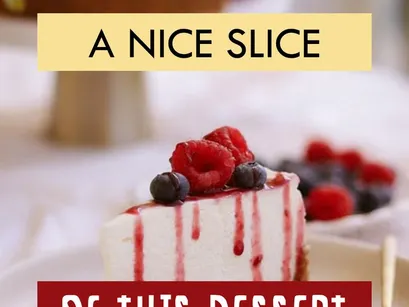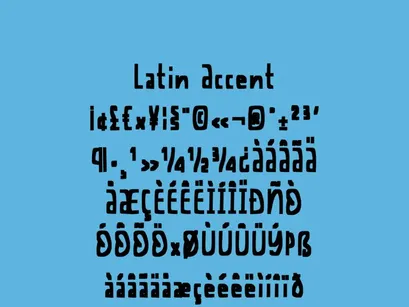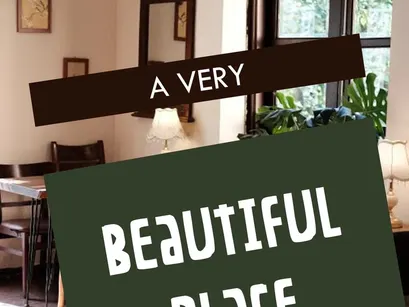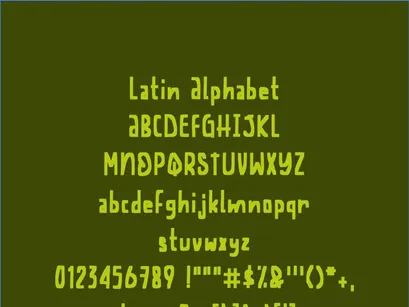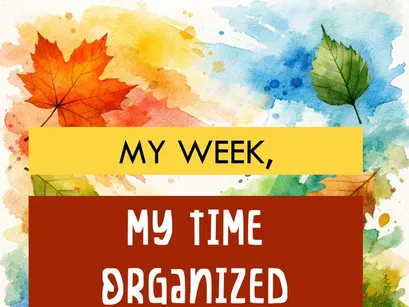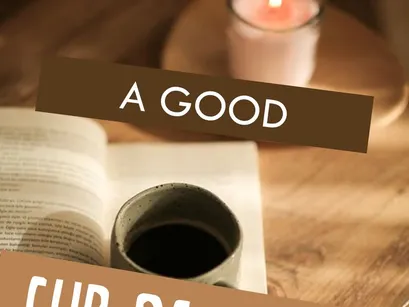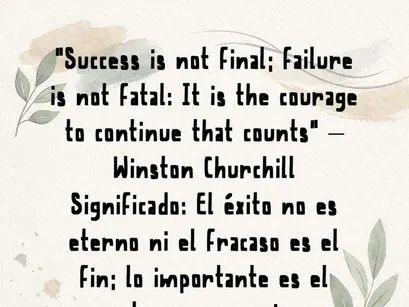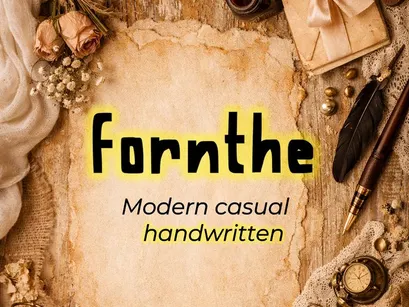
Fornthe is a modern, casual handwritten typeface inspired by paper texture and the natural strokes of handcrafted lettering.
Its style blends spontaneity with elegance, making it ideal for projects that call for a warm, human touch—such as agendas, planners, covers, artistic branding, invitations, or digital content.
Full Latin alphabet (uppercase and lowercase)
Accented characters and basic symbols
💛 With its firm yet friendly stroke, Fornthe adds personality and authenticity to any creative design.